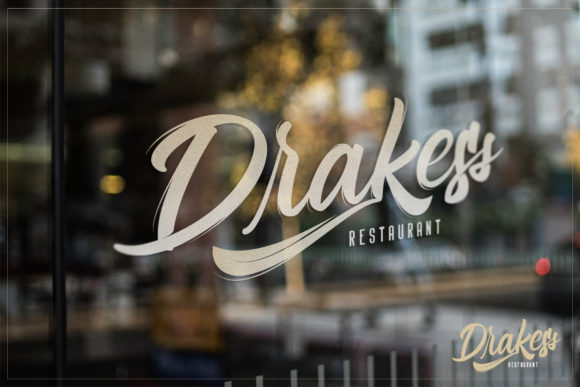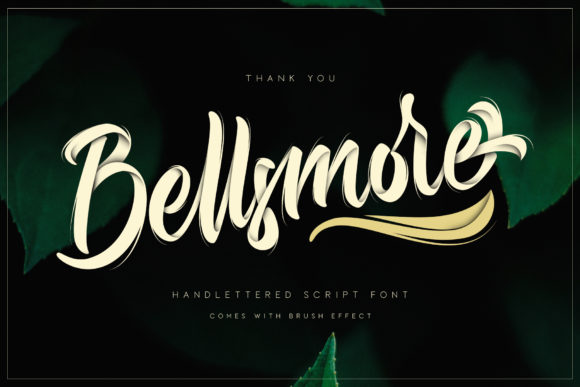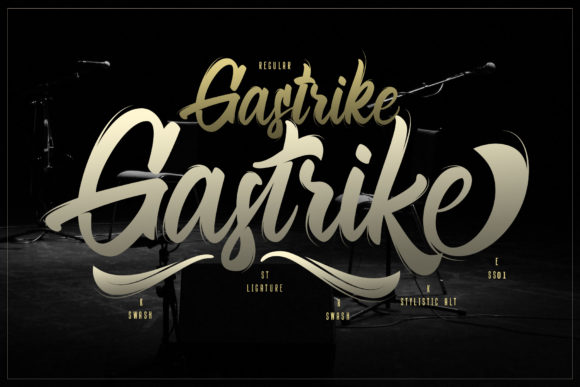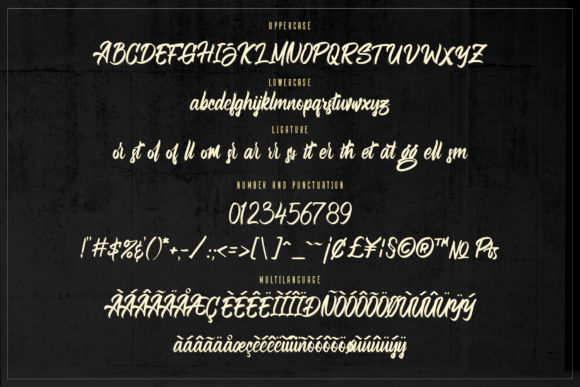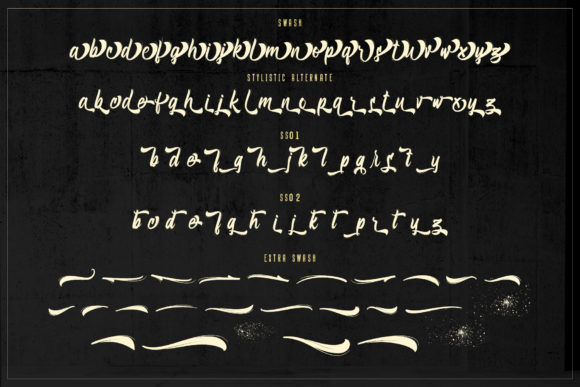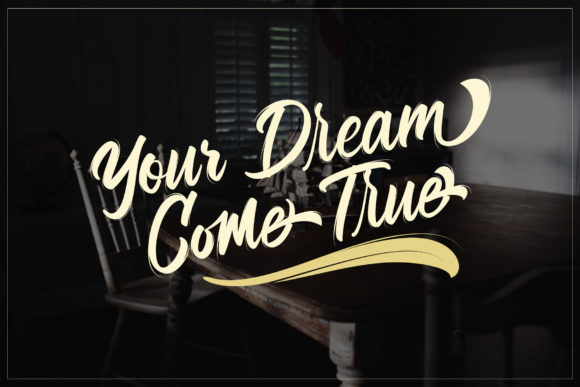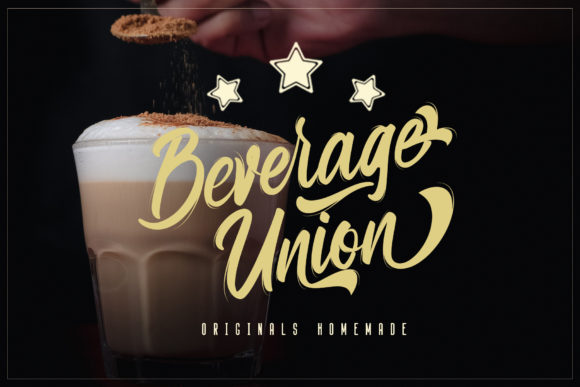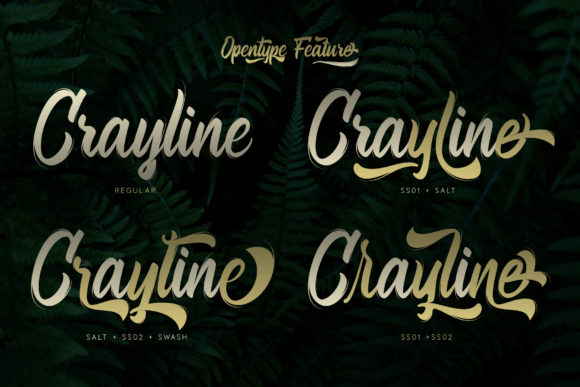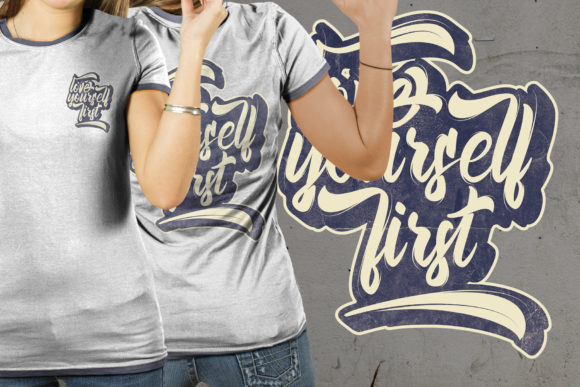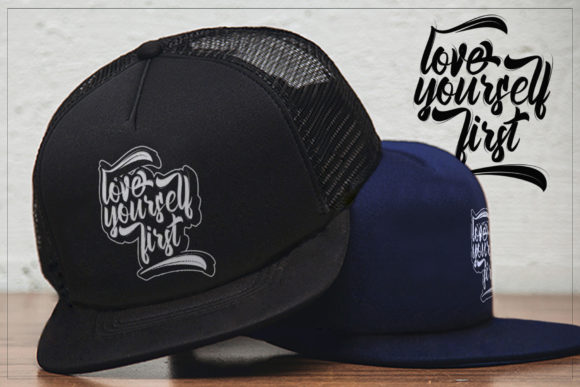
Bellsmore Font
About Bellsmore Font
Bellsmore is a wonderful and unique brush script with a lovely charm. It will inspire any new design projects with its bold and authentic feel.